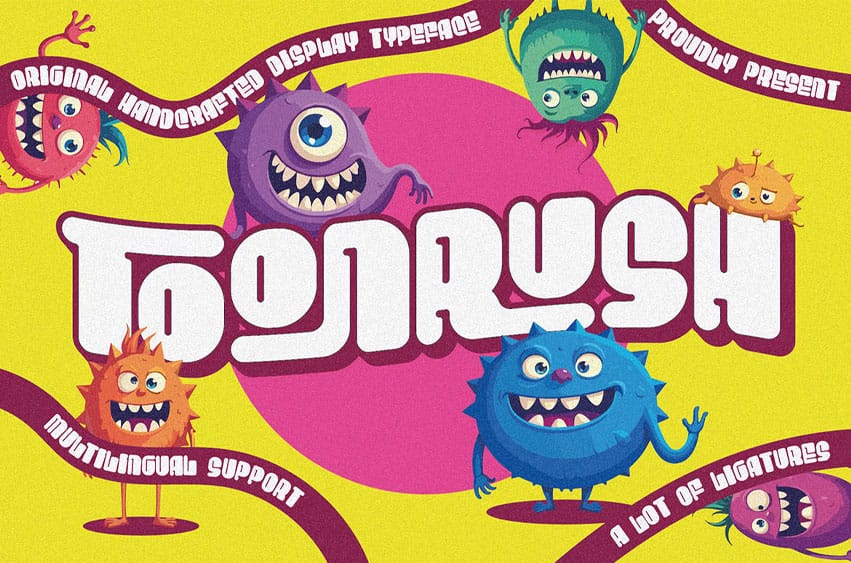
Toonrush Font Unique, playful, textured, funny, retro, bold & layered display sans serif font.
Comes with multilingual support & a lot of ligatures + 3 font versions – great for your new logo, monogram, or branding project.
- 3 font versions – regular, rough & volume (layered)
- Multilingual support & 204 ligatures
- Great for your new logo, monogram, or branding project